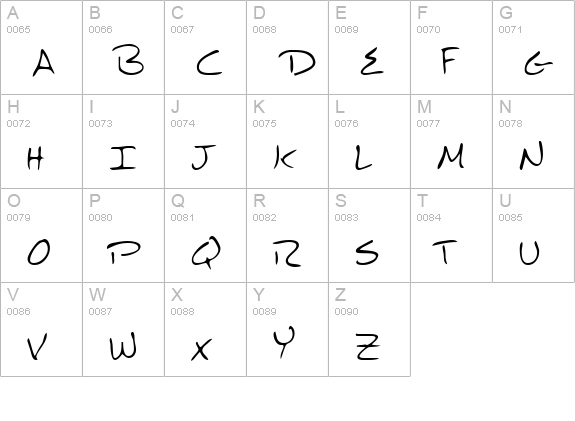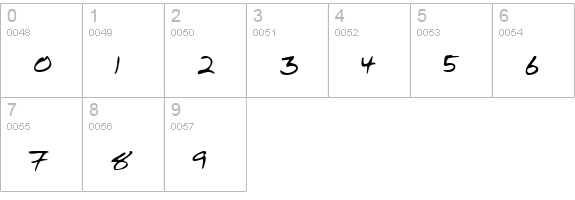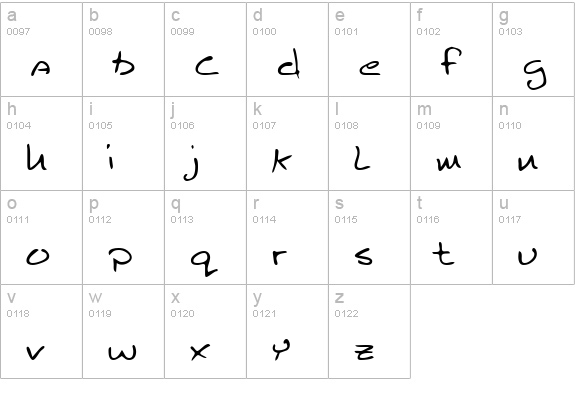
SeftonsHand Regular Font Details
SeftonsHand Regular is the standard, neutral variant in the SeftonsHand typeface family \xE2\x80\x94 well suited to general body text, paragraphs, and standard typographic work.
SeftonsHand Regular font is a unique and charming typeface that effortlessly captures the essence of handwritten script. Its flowing strokes and subtle imperfections lend a warm and personal touch to any design project. Whether you are creating invitations, greeting cards, or branding materials, this font will add a delightful handmade feel to your work. With its versatile nature, SeftonsHand Regular font is suitable for a wide range of applications. Its legibility and distinct character make it perfect for headlines, subheadings, and body text alike. This font strikes the perfect balance between elegance and informality, making it ideal for both formal and casual designs. What makes SeftonsHand Regular font even more appealing is that it is available for free download at FontsMarket.com. This means that you can easily access and use this delightful typeface without any cost or restrictions. Whether you are a professional designer or a hobbyist, this font allows you to add a touch of creativity and personality to your projects without breaking the bank. The attention to detail in SeftonsHand Regular font is evident in its carefully crafted letterforms. Each character has been meticulously designed to maintain a consistent and harmonious appearance. The subtle variations in stroke width and gentle curves give this font a natural and organic look, as if it was penned with a skilled hand. SeftonsHand Regular font is a delightful addition to any typography collection. Its versatility, charm, and the fact that it is freely available for download at FontsMarket.com make it a must-have for designers seeking a unique and expressive typeface. Whether you are working on a personal project or a professional endeavor, this font will surely elevate your designs and leave a lasting impression on your audience.